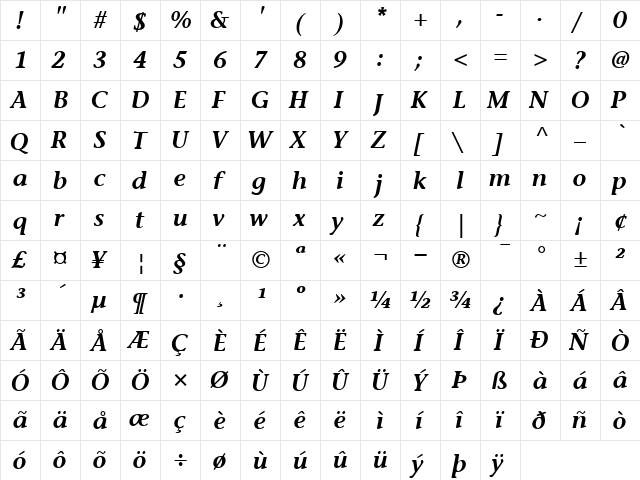
StoneInformal SemiboldItalic
Design Context for StoneInformal Typeface
StoneInformal is a composed and adaptable typeface that performs quietly and consistently across a wide range of design contexts. The slanted form adds forward momentum and visual energy. The heavy weight commands attention and anchors typographic hierarchies.
Pro Tip: Try StoneInformal for annotation and caption copy alongside an upright companion — the contrast in angle creates a dynamic but ordered typographic system.